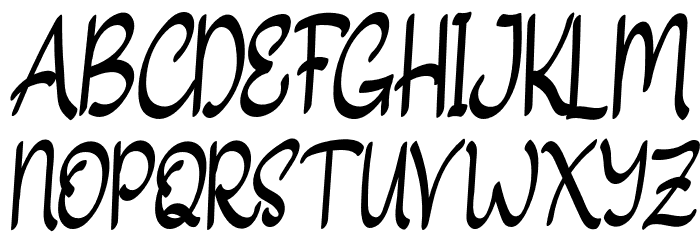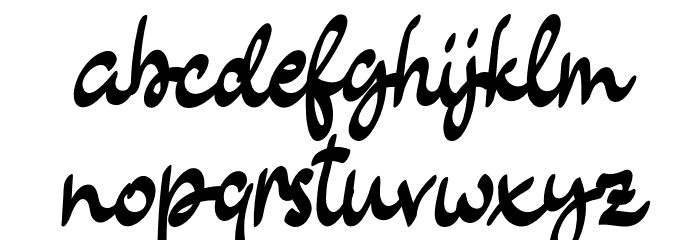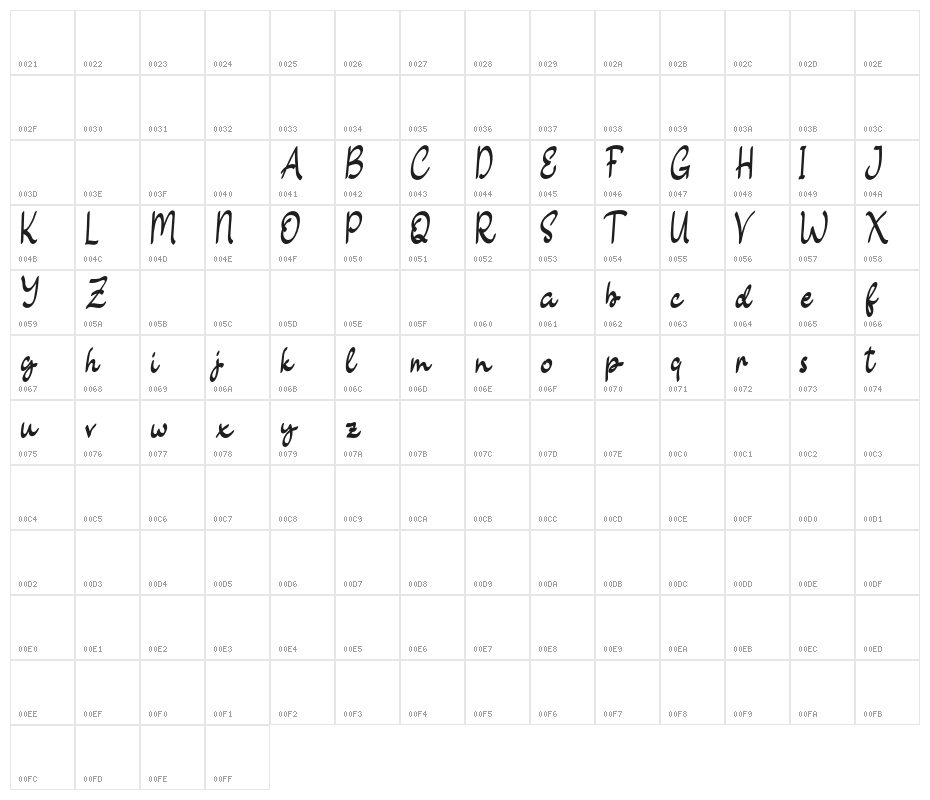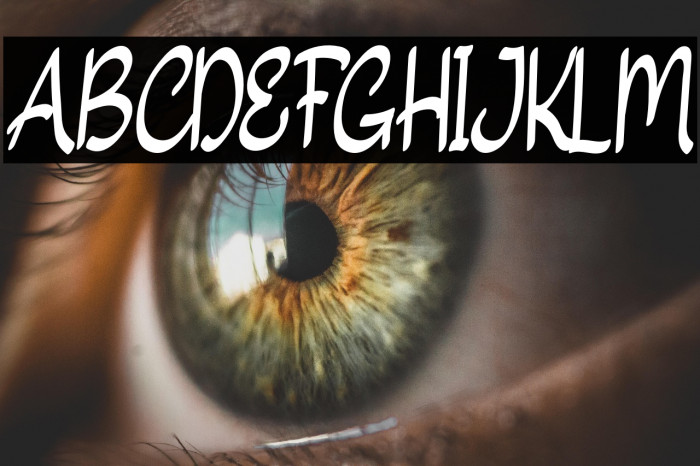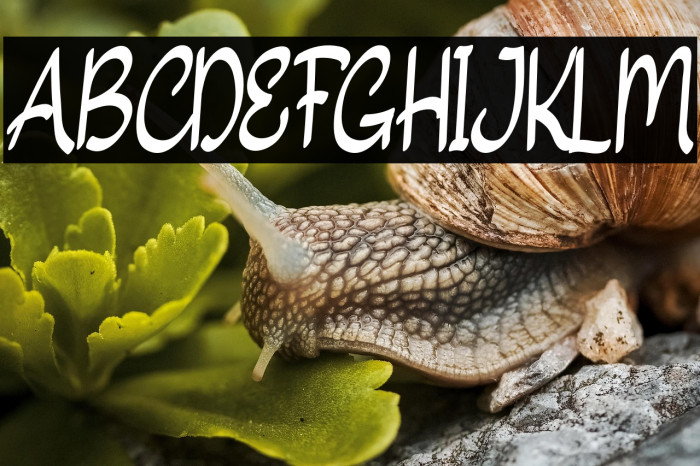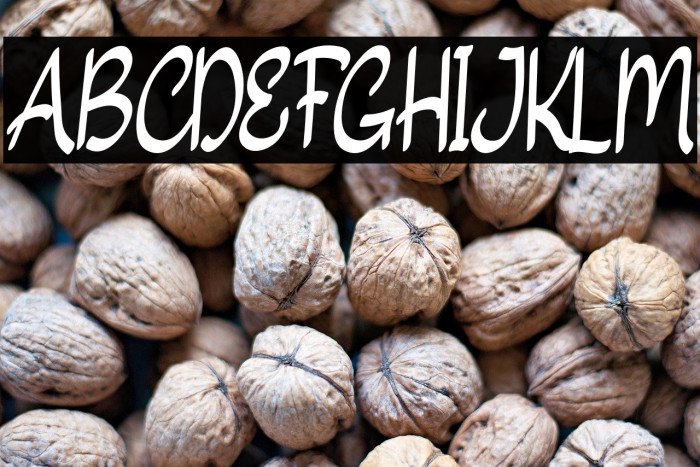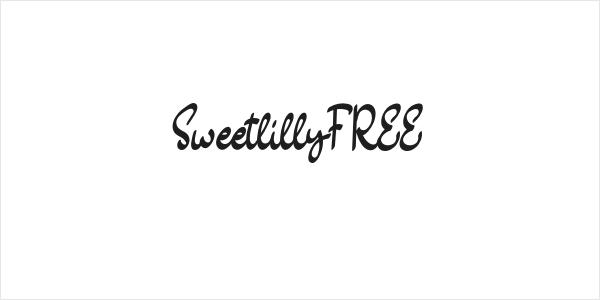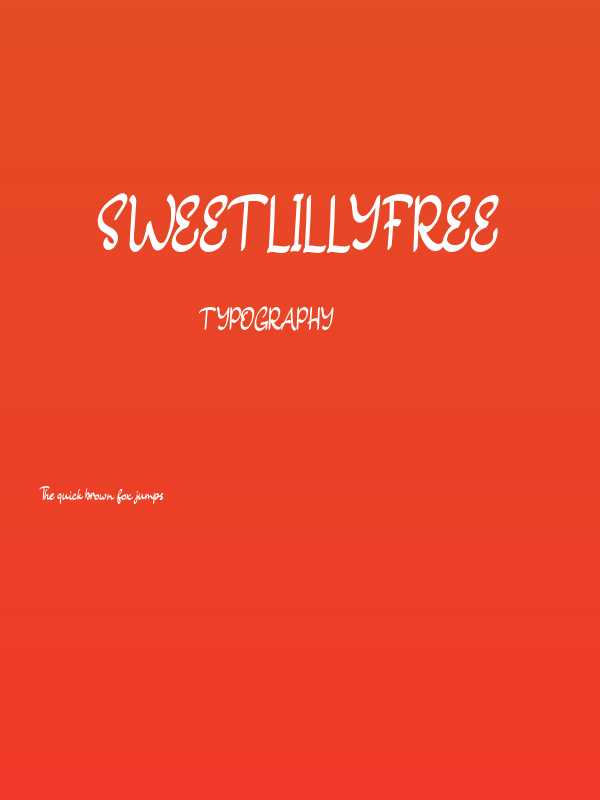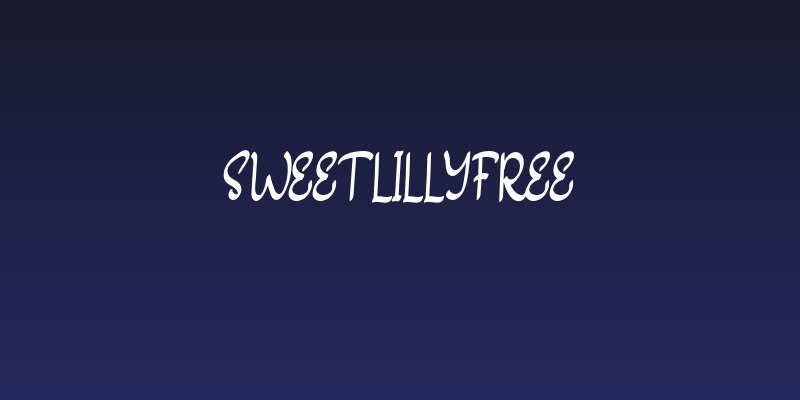
SweetlillyFREE Font
This font showcases a lively and flowing script style, characterized by its bold and expressive strokes. The uppercase letters are tall and slightly slanted, giving a sense of movement and elegance. The lowercase letters maintain a consistent flow, with smooth connections between each character, enhancing the cursive appearance. The overall design is playful yet sophisticated, making it suitable for creative and artistic projects. The font's unique charm lies in its ability to convey a sense of personality and warmth, making it ideal for invitations, greeting cards, and branding materials that require a personal touch.
A lively and flowing script font with bold, expressive strokes.
- Font: SweetlillyFREE
- Proposed Projects: Ideal for invitations, greeting cards, branding materials, and artistic projects.
- Category: Script
- Use Case: Logos, Headlines, Artistic projects